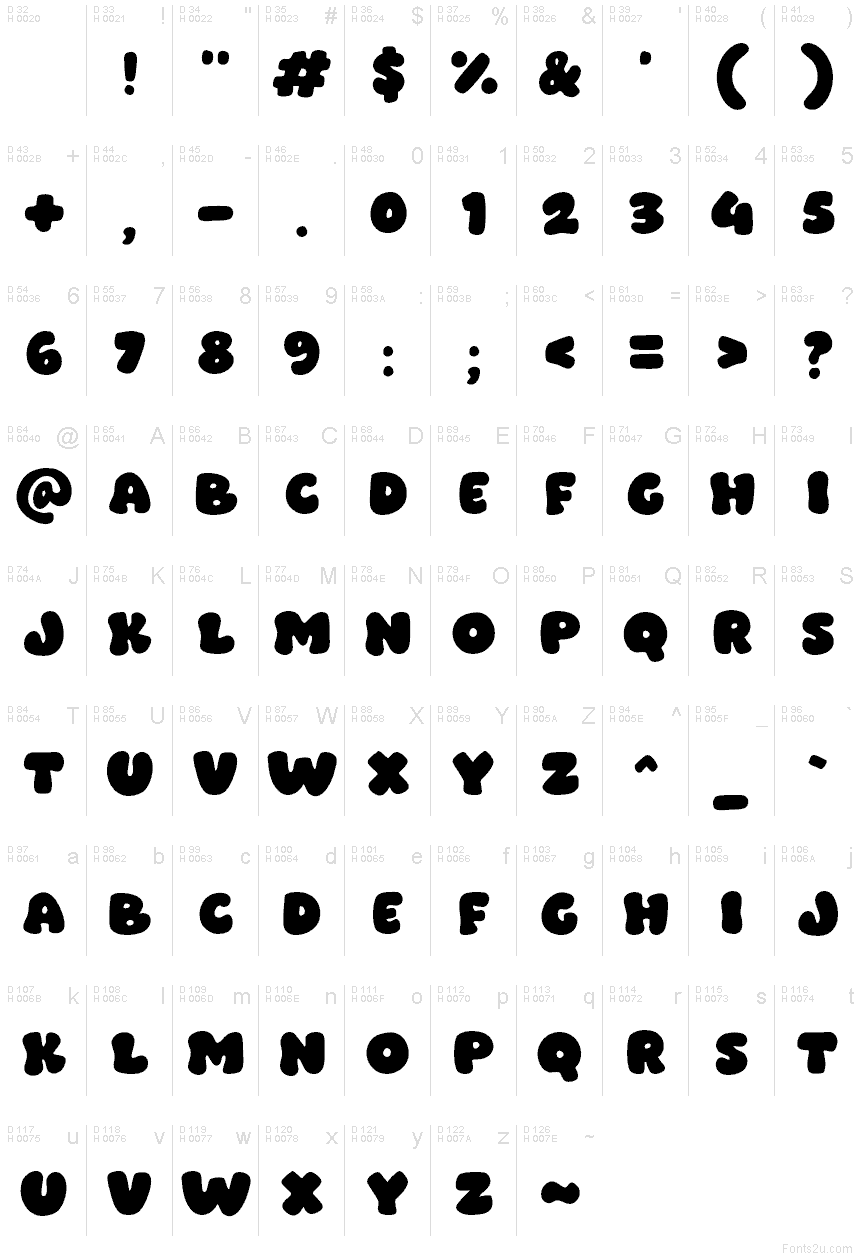
Moochi Jelly
Moochi Jelly font by Origin Type is a bold cartoon display with a rounded and smooth look. Its cheerful and retro-inspired characters greatly capture the attention of all those who check it out. Enjoy this free font’s casual aesthetic that makes it perfect for contemporary applications within children’s products and recreational branding.
Use Moochi Jelly to design toy boxes, animated posters, greeting cards, school announcements, magazine covers, birthday invitations, pajamas packaging, dazzling logos, video graphics, social media posts or stories.